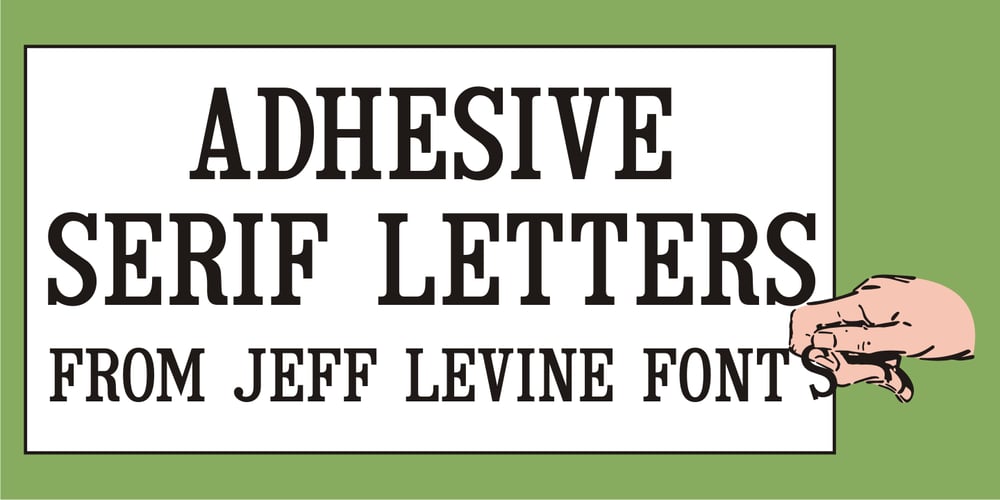
Adhesive Serif Letters JNL Font Family was designed by Jeff Levine and published by Jeff Levine. Adhesive Serif Letters JNL contains 1 styles and family package options. A few scant examples of die cut gummed letters (R, C, Y and &) provided the design inspiration for Adhesive Serif Letters JNL. Influenced by the Caslon style, this typeface offers clean, legible titling. The sample letters were once manufactured by the Tablet and Ticket Company of Chicago and sold under their brand name of Willson’s [named for the founder of the company]. Gummed letter sets were available in a variety of styles and sizes for various sign, merchandising and marking needs.